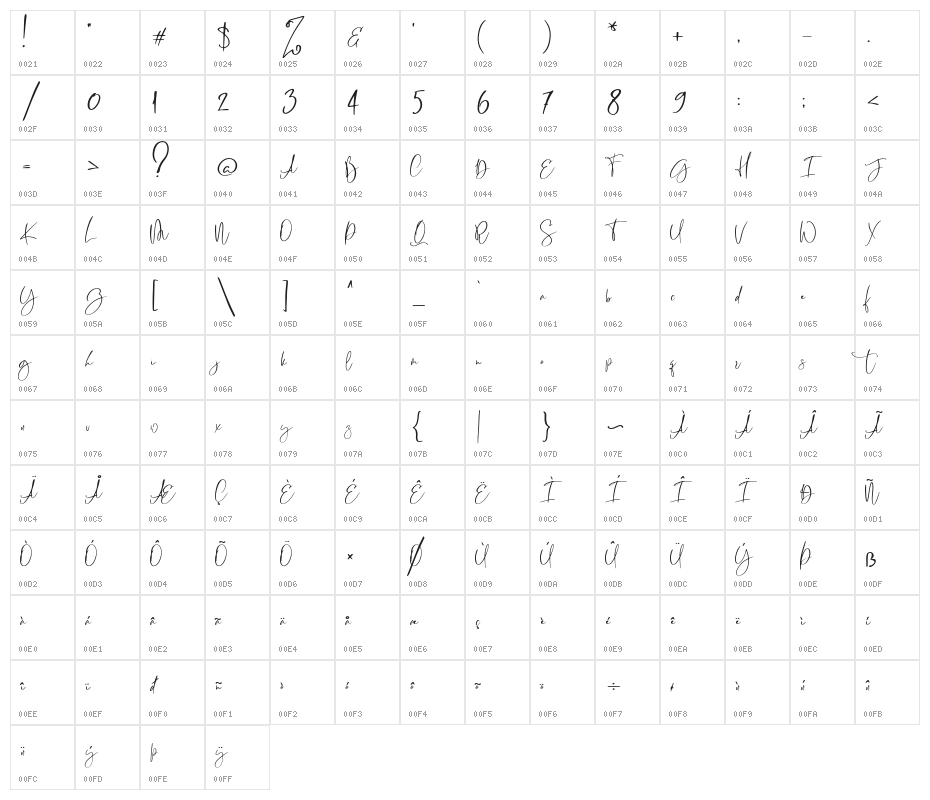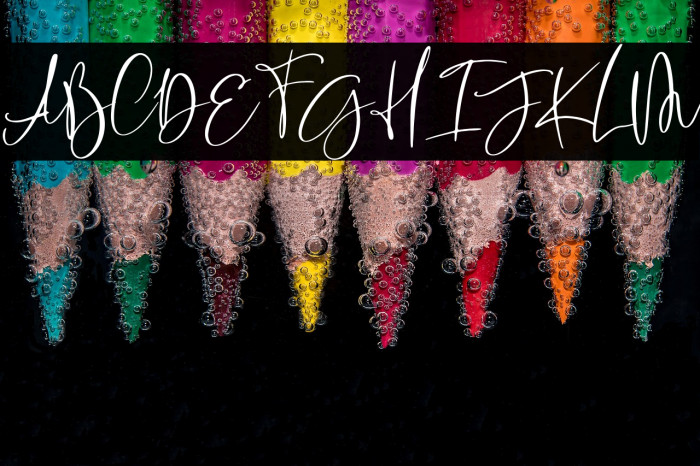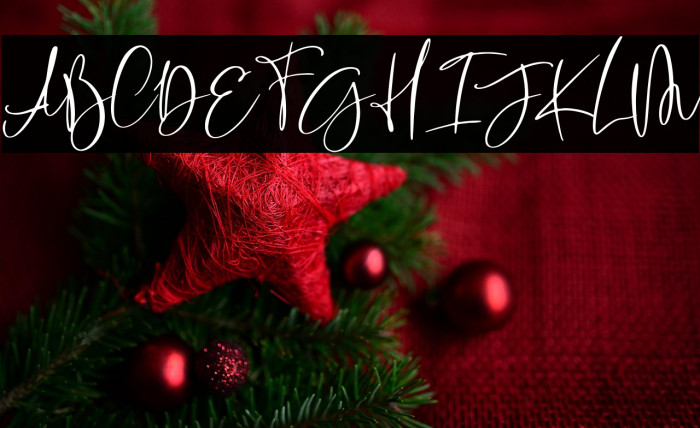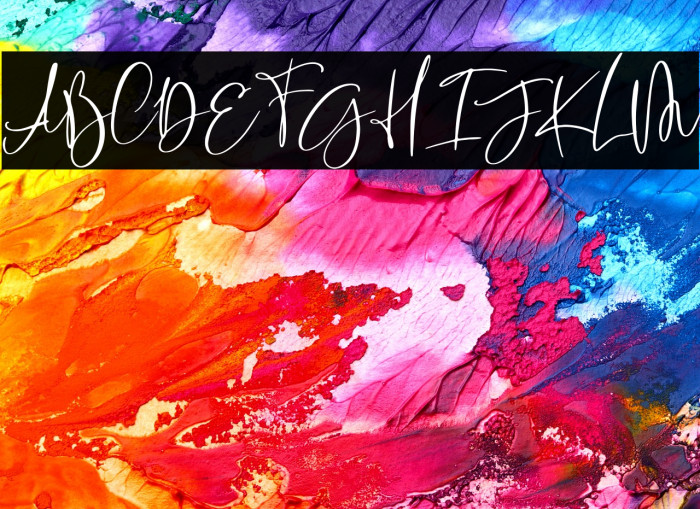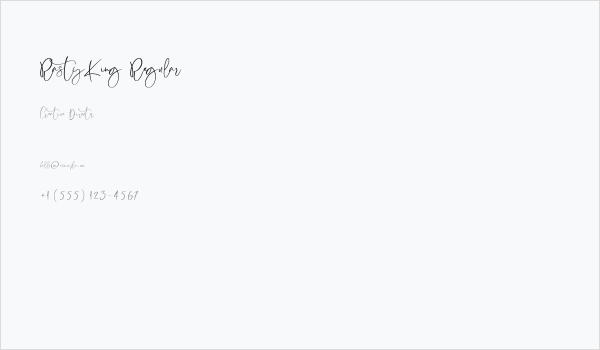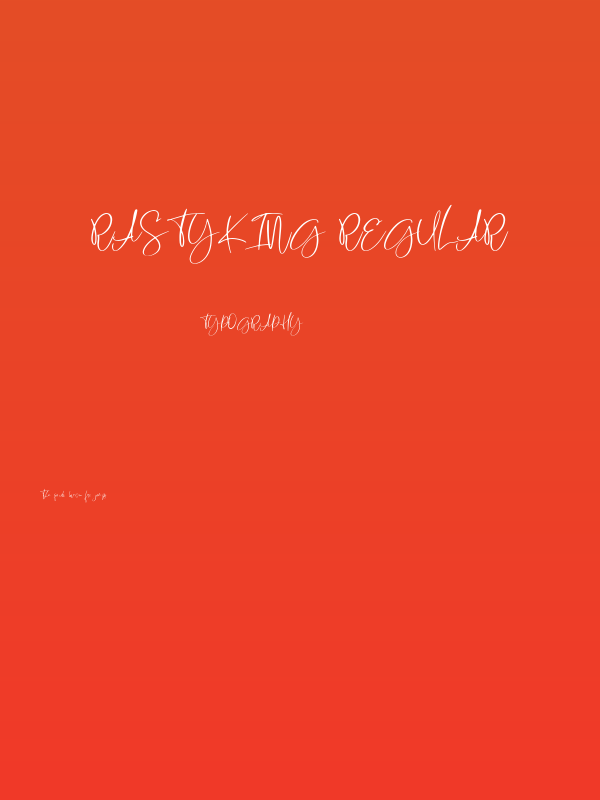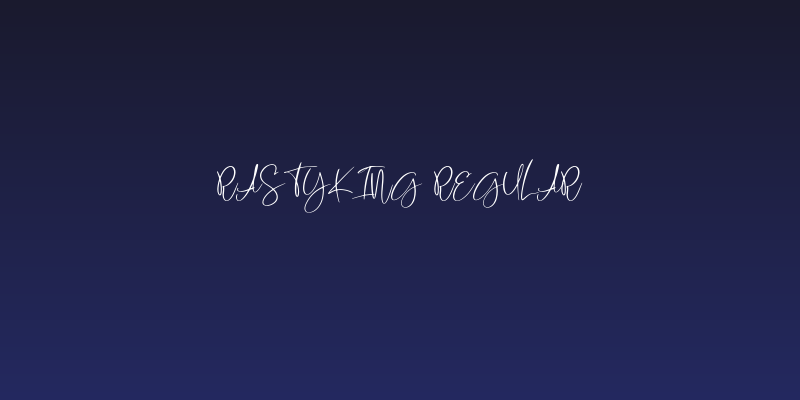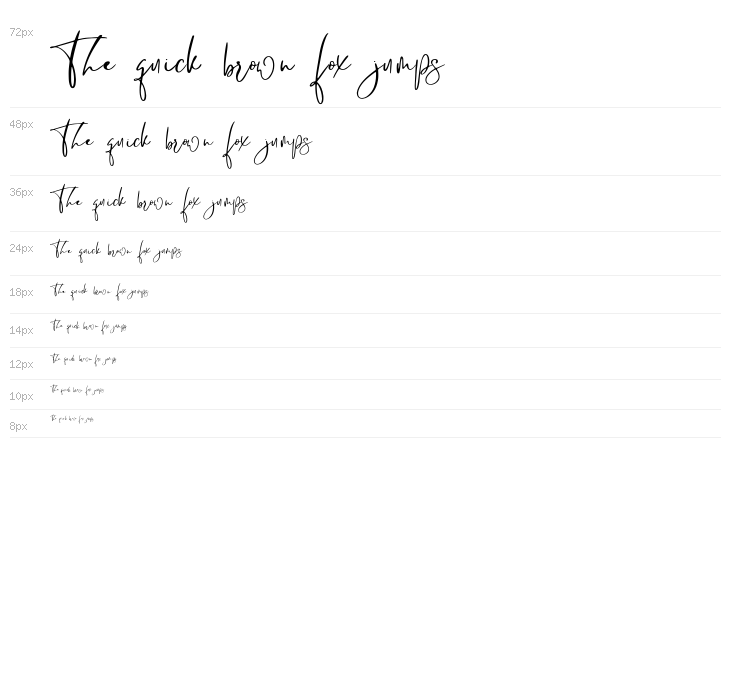
RastyKing Regular Font
RastyKing Regular Description
This font exudes a lively and artistic flair, characterized by its flowing, cursive style that mimics natural handwriting. The uppercase letters are bold and dynamic, with a playful yet elegant touch, while the lowercase letters maintain a consistent fluidity, adding a personal and intimate feel. The numerals are distinct and easy to read, maintaining the font's overall whimsical aesthetic. Special characters are creatively integrated, enhancing the font's versatility. This font is perfect for projects that require a personal, artistic touch, such as invitations, greeting cards, or creative branding.